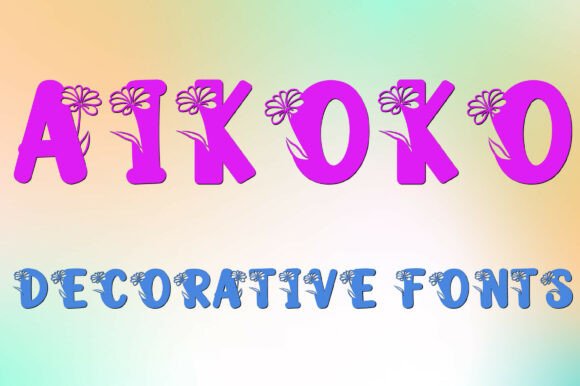
The Blooming Beauty of Aikoko Font: A Designer’s Delight
I’ll never forget the time I was working on a project for a client who wanted a logo that screamed elegance and playfulness at the same time. I spent hours scouring the internet for the perfect font, but nothing seemed quite right. That was until I stumbled upon Aikoko Font, a charming and artistic typeface that has since become a staple in my design toolkit.
A Personal Review of Aikoko Font
What I Love About Aikoko Font
• ✨ Unique and eye-catching design: Aikoko Font is inspired by beautiful floral elements, making it perfect for designs that need a touch of elegance and whimsy.
• ✅ Versatile and adaptable: This font is suitable for a wide range of creative applications, from logos and branding to posters, invitations, and social media graphics.
• 🌼 Playful and elegant: Aikoko Font strikes the perfect balance between playfulness and sophistication, making it ideal for designs that need to make a statement.
• 📚 Comprehensive character set: The font features uppercase English letters A–Z and numbers 0–9, providing everything you need to create stunning designs.
While Aikoko Font is an amazing typeface, there are a few things to keep in mind:
• 🤔 Limited character set: As mentioned earlier, the font only features uppercase English letters and numbers, which might limit its use for certain projects.
• ⚠️ Not suitable for body text: Aikoko Font is a decorative typeface, making it best suited for headlines, titles, and short text snippets rather than lengthy paragraphs.
A Practical Guide to Using Aikoko Font
The Backstory of Aikoko Font
Aikoko Font was created by a talented designer who wanted to bring a touch of elegance and playfulness to the world of typography. Inspired by beautiful floral elements, this font is the perfect blend of sophistication and whimsy.
Q: What is Aikoko Font?
A: Aikoko Font is a decorative flower font inspired by beautiful floral elements, perfect for designs that need a touch of elegance and playfulness.
Q: Is Aikoko Font easy to read?
A: Aikoko Font is a decorative typeface, making it best suited for headlines, titles, and short text snippets rather than lengthy paragraphs.